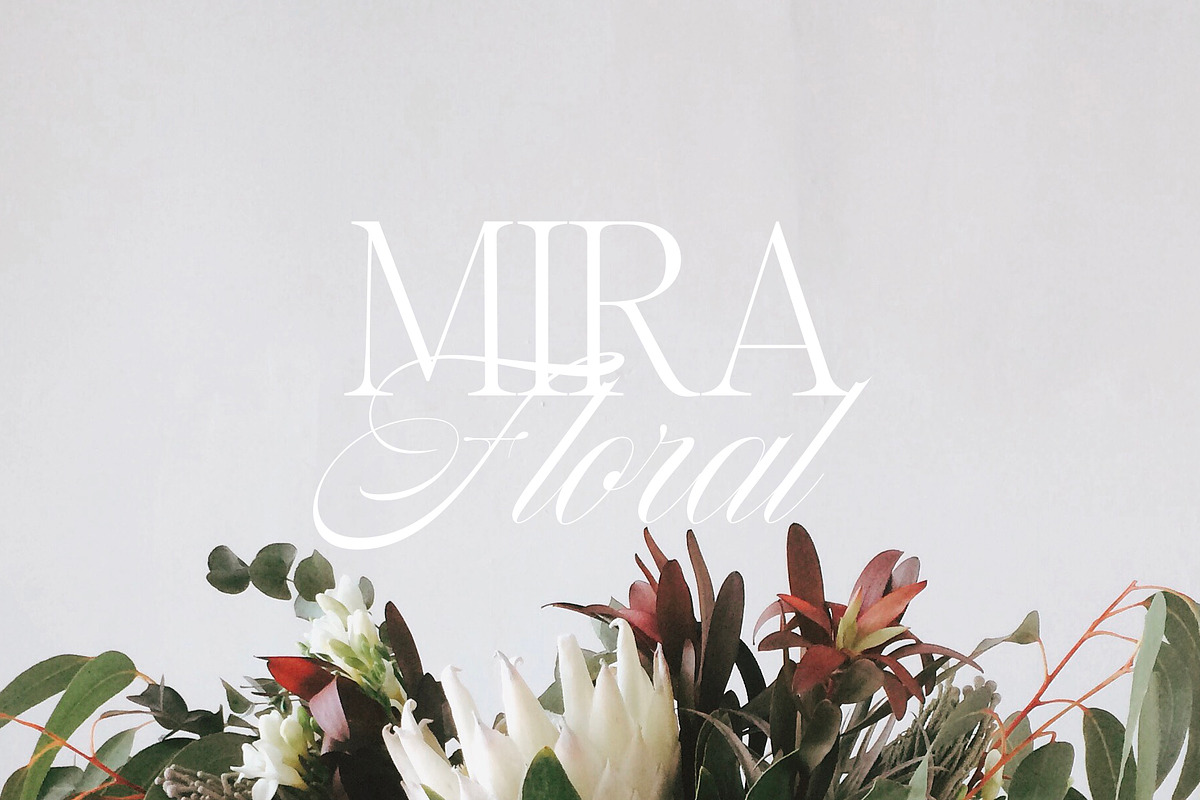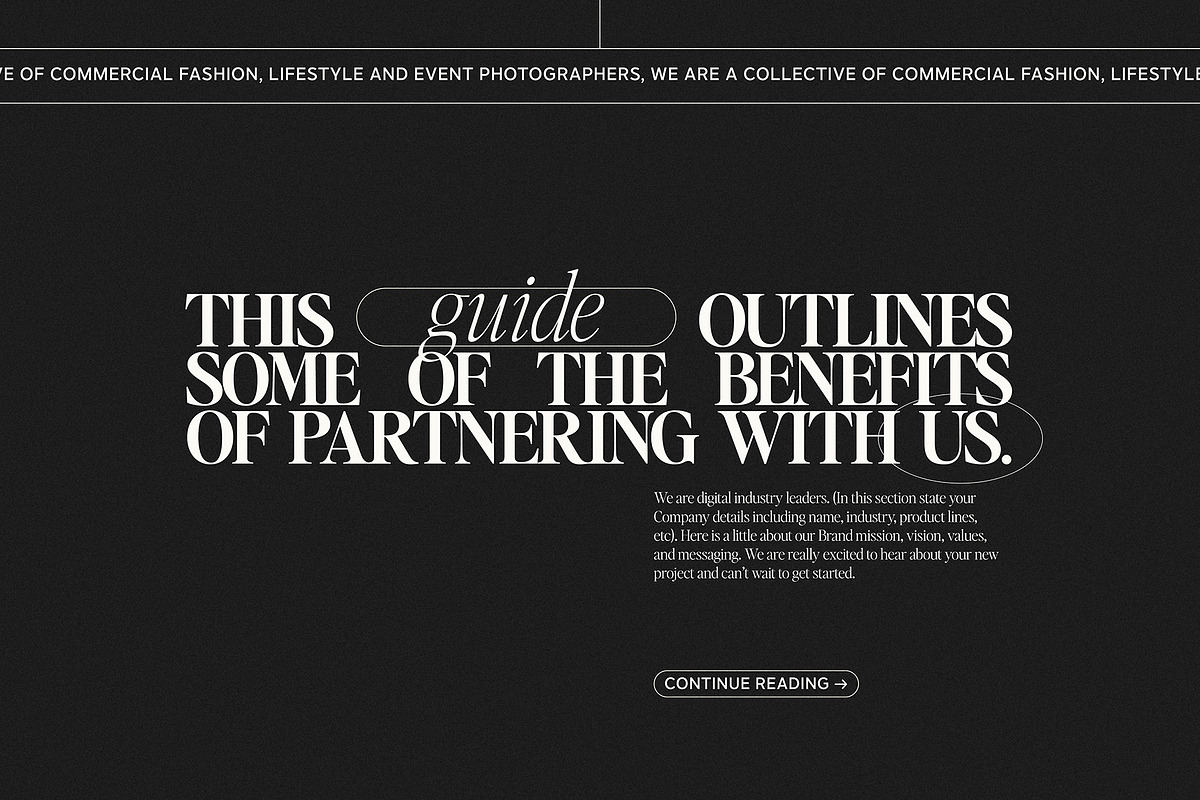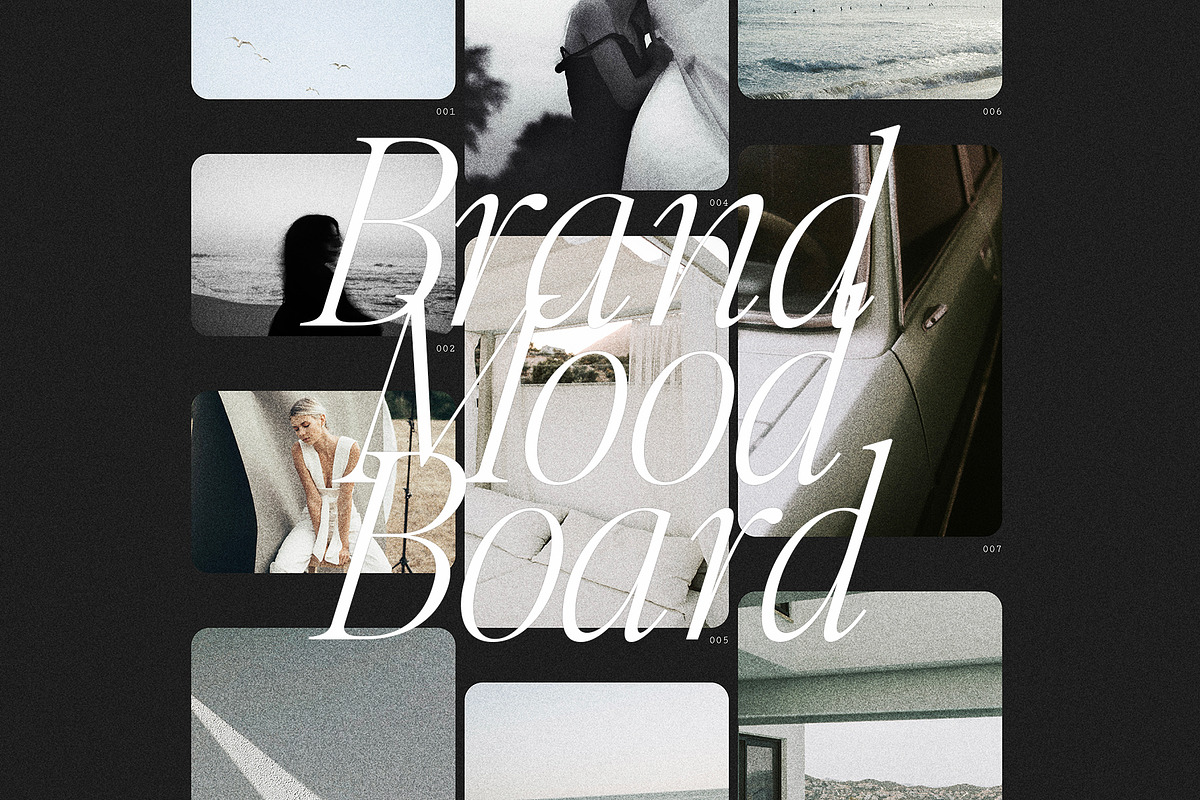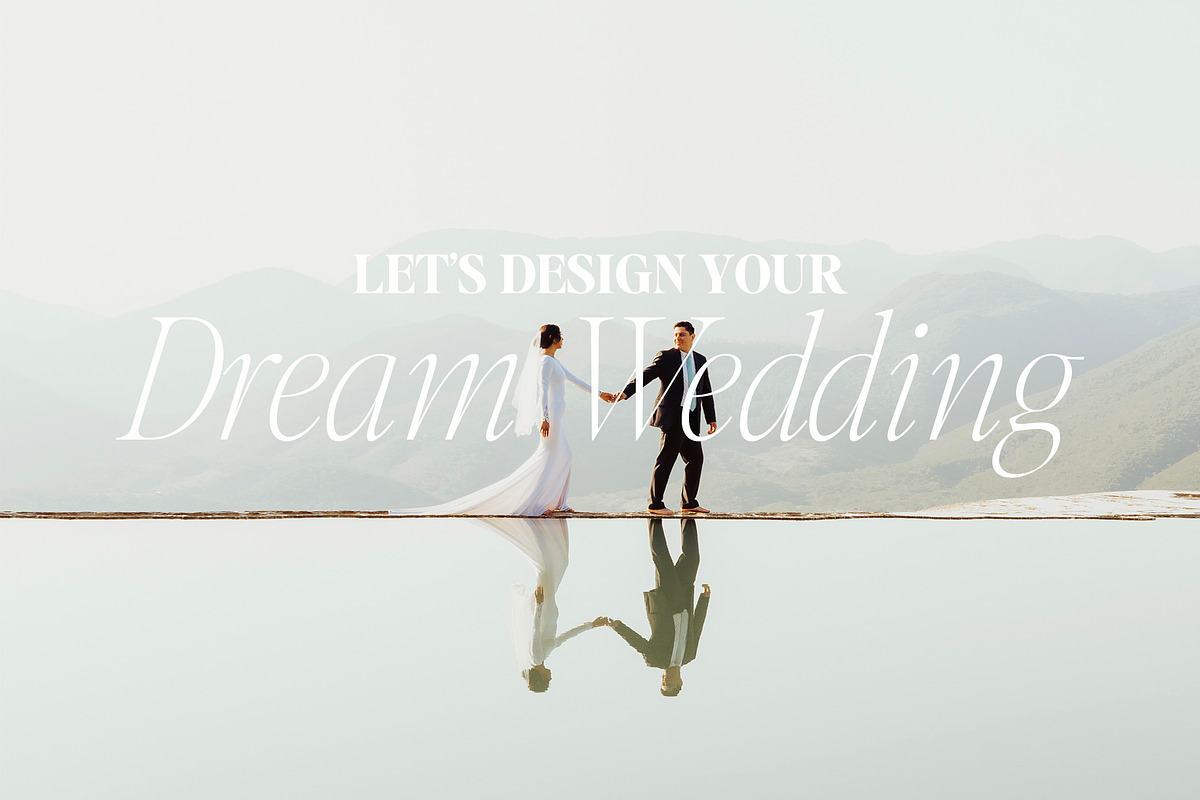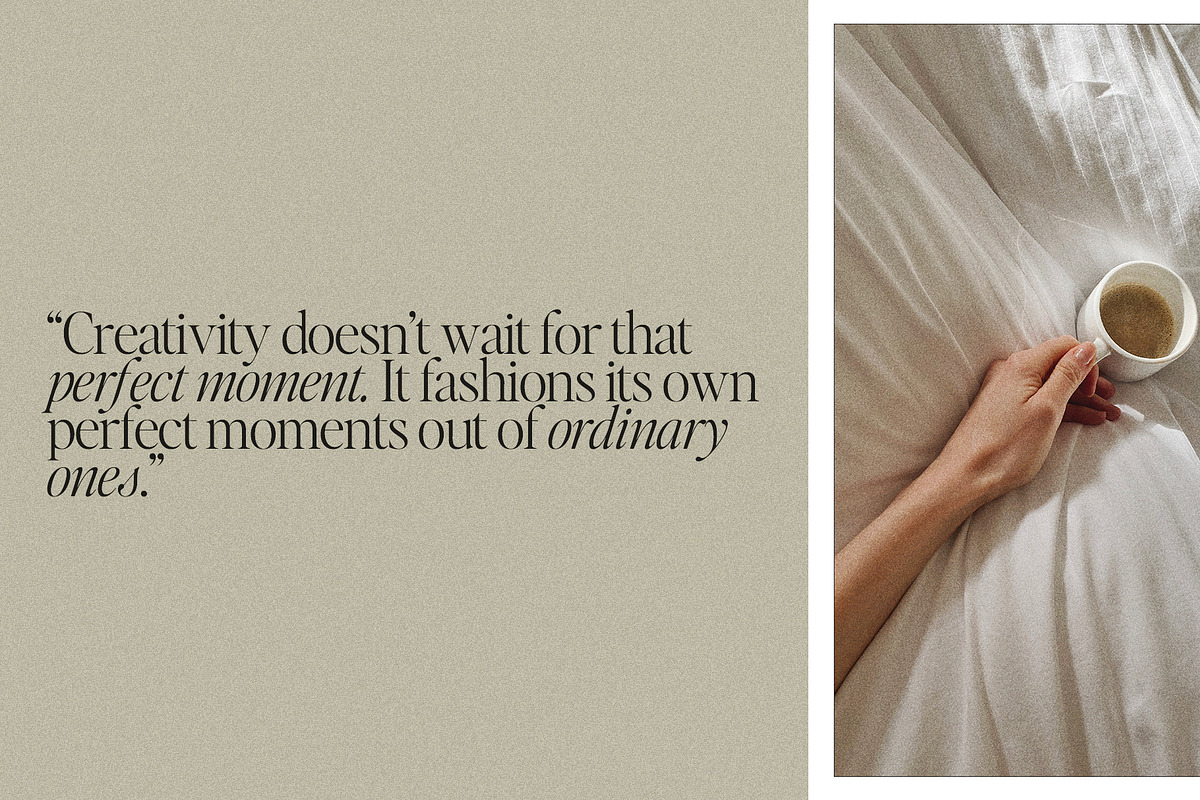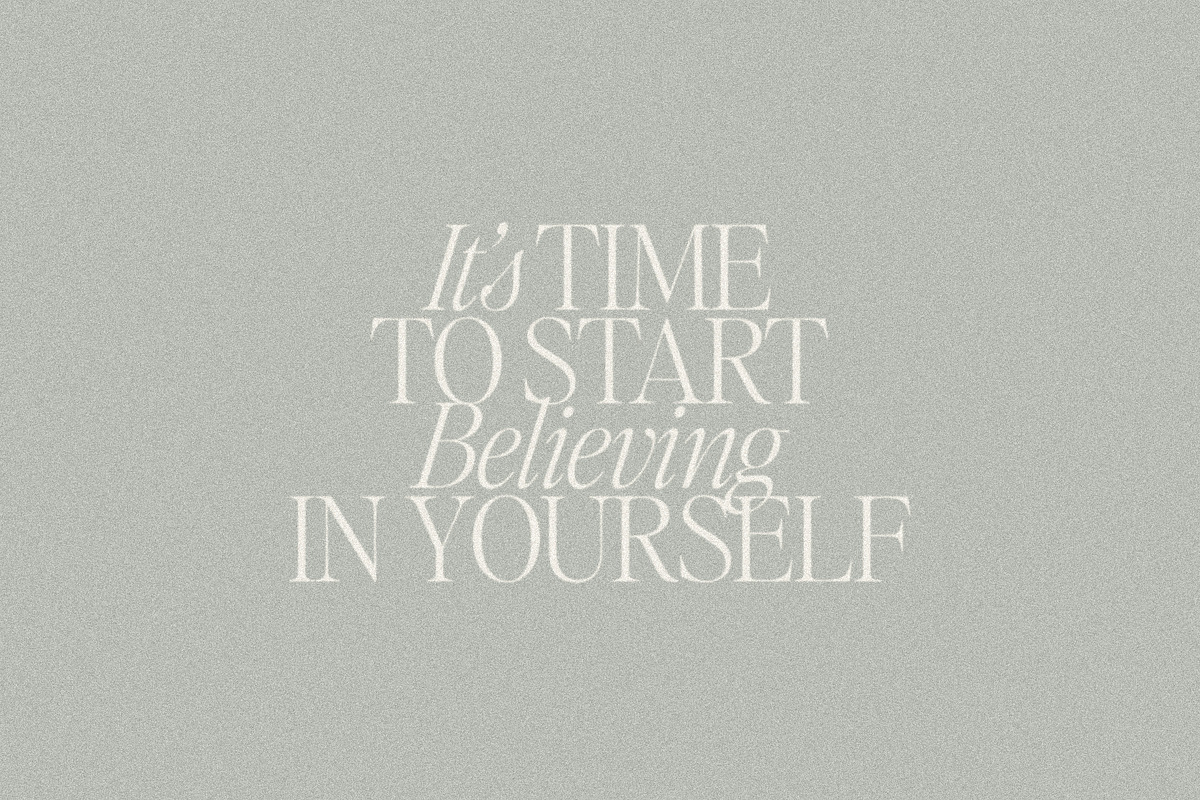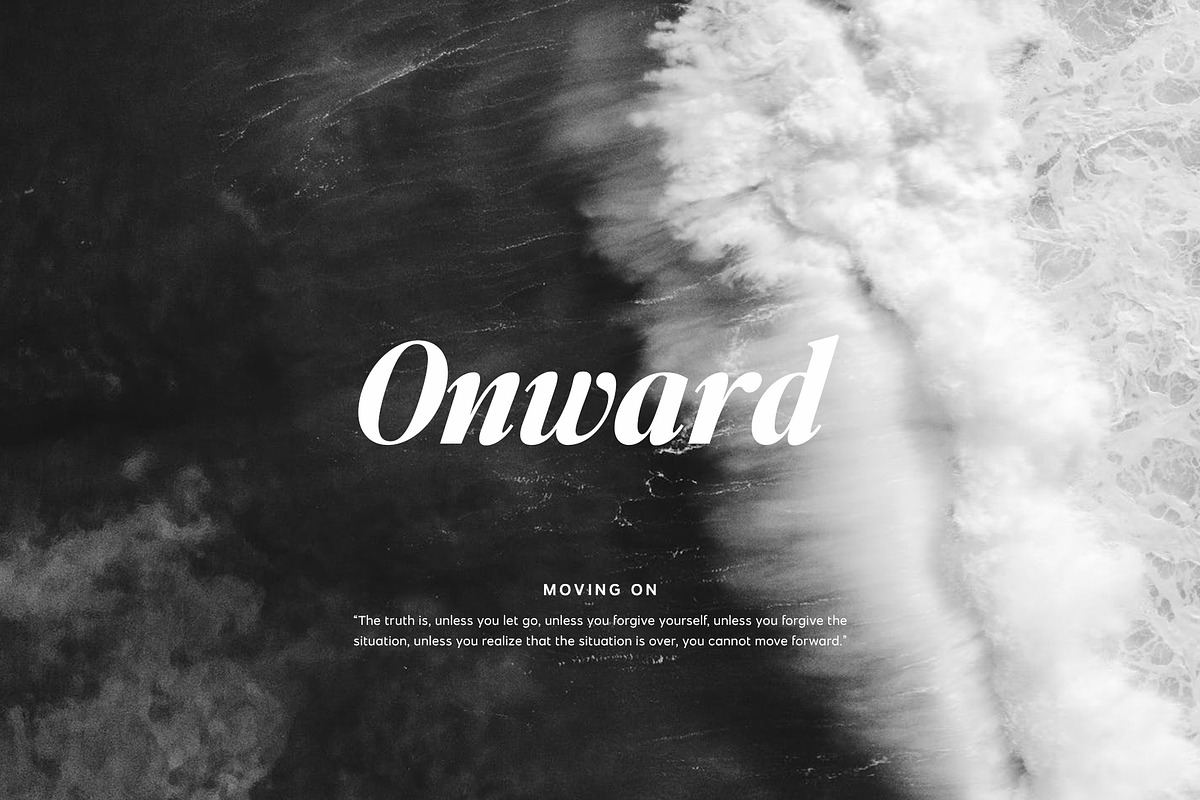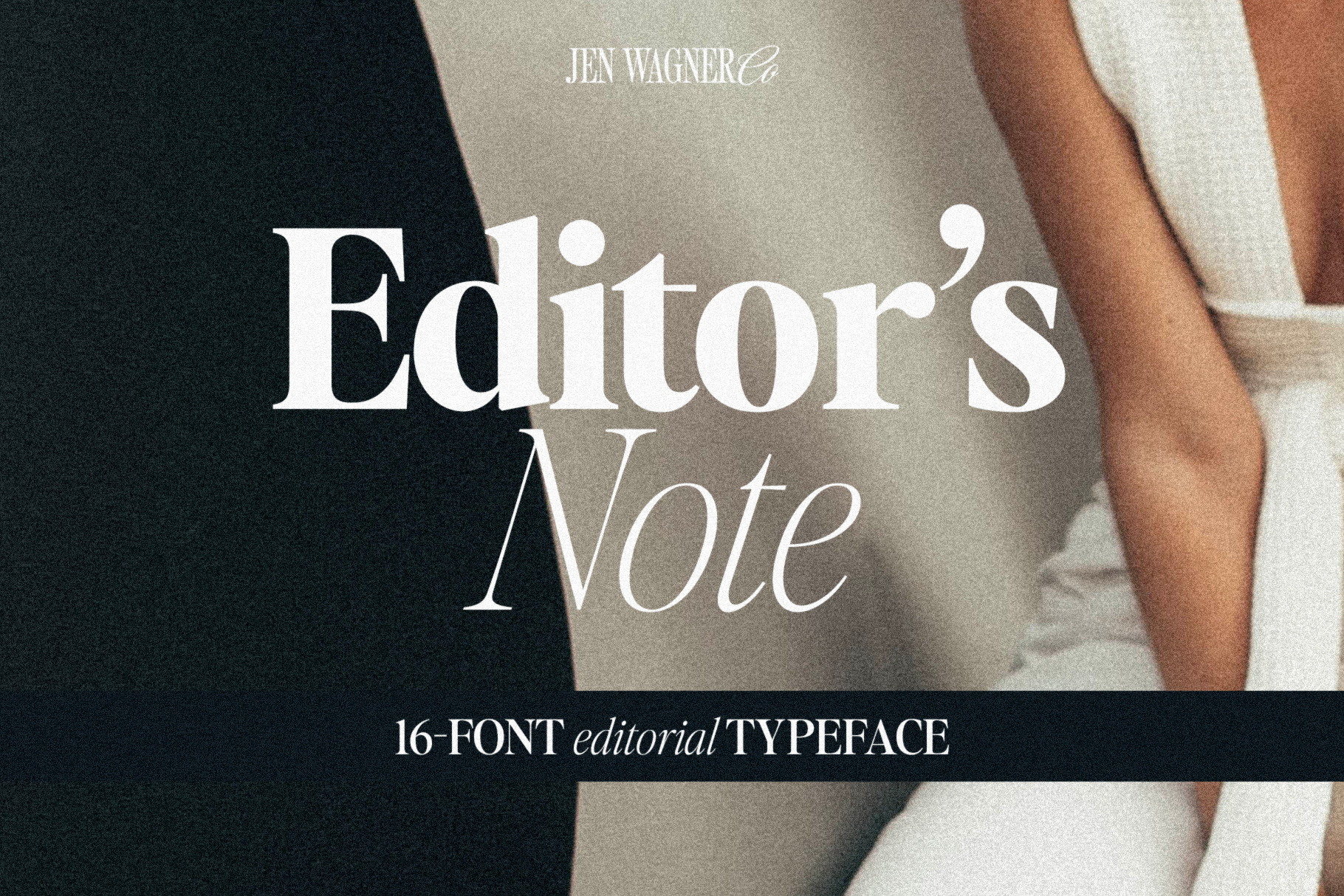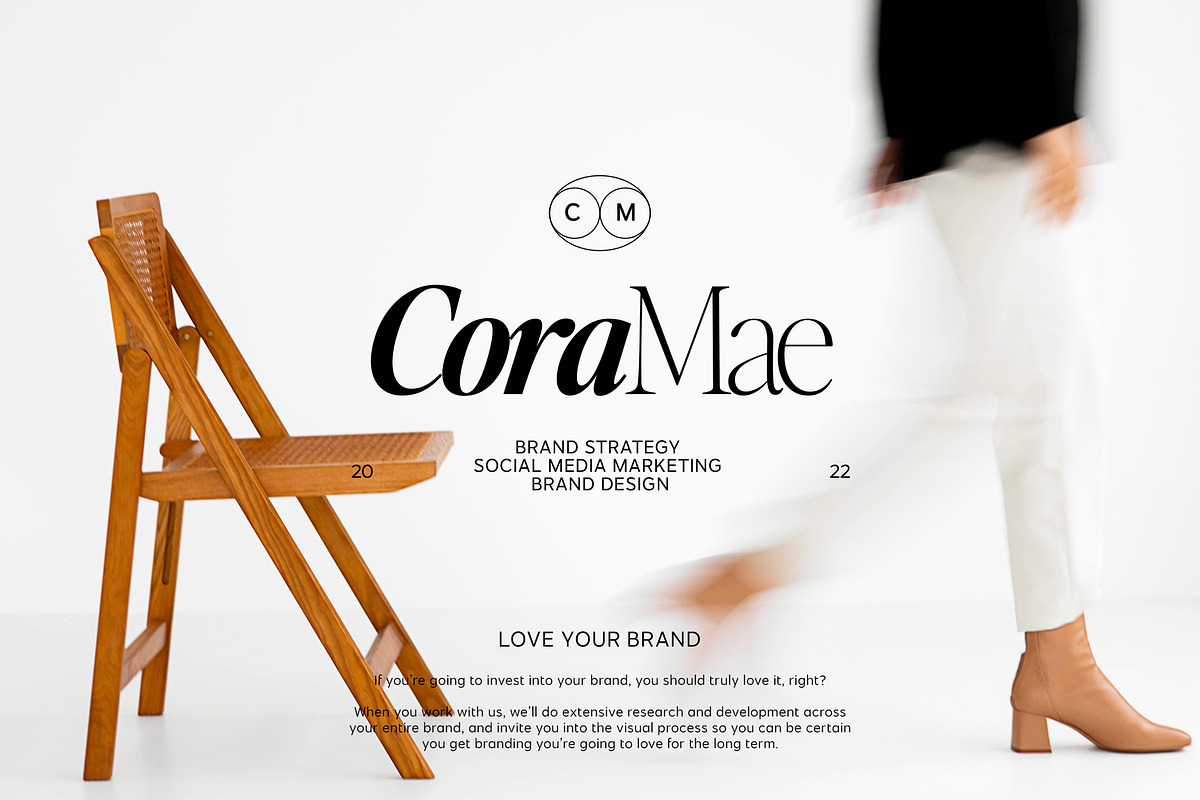
Editor's Note 16Font Editorial Serif
Say hello to the Editor's Note FAMILY – an expansion on Editor's Note that includes 16 fonts, regular and italic, from Hairline weight to Bold, and still has all the clean lines, tight curves, and trendy minimalist vibes!
I've been loving the clean, editorial type trend happening in design right now (let's be real, there's always a place for timeless editorial type).
Editor's Note is a stunningly crisp upper and lowercase typeface that looks incredible in both large settings as a display text (think big headers, pretty quotes, calls to action, etc.).
I've been loving combining the regular and italic, especially in big, bold quotes (see the "It's time to start believing in yourself" quote, image #3)
One thing to note about Editor's Note is the letter spacing. It was intentionally spaced for clean reading and intentional balance, so I recommend setting the spacing a little tighter if you want to create the trendy, all caps look found in many of these images, like image #2 (around -20 to -35 should do!).
- Editor's Note Hairline (Regular & Italic)
- Editor's Note Thin (Regular & Italic)
- Editor's Note Extralight (Regular & Italic)
- Editor's Note Light (Regular & Italic)
- Editor's Note Regular (Regular & Italic)
- Editor's Note Medium (Regular & Italic)
- Editor's Note Semibold (Regular & Italic)
- Editor's Note Bold (Regular & Italic)
- Foreign language support